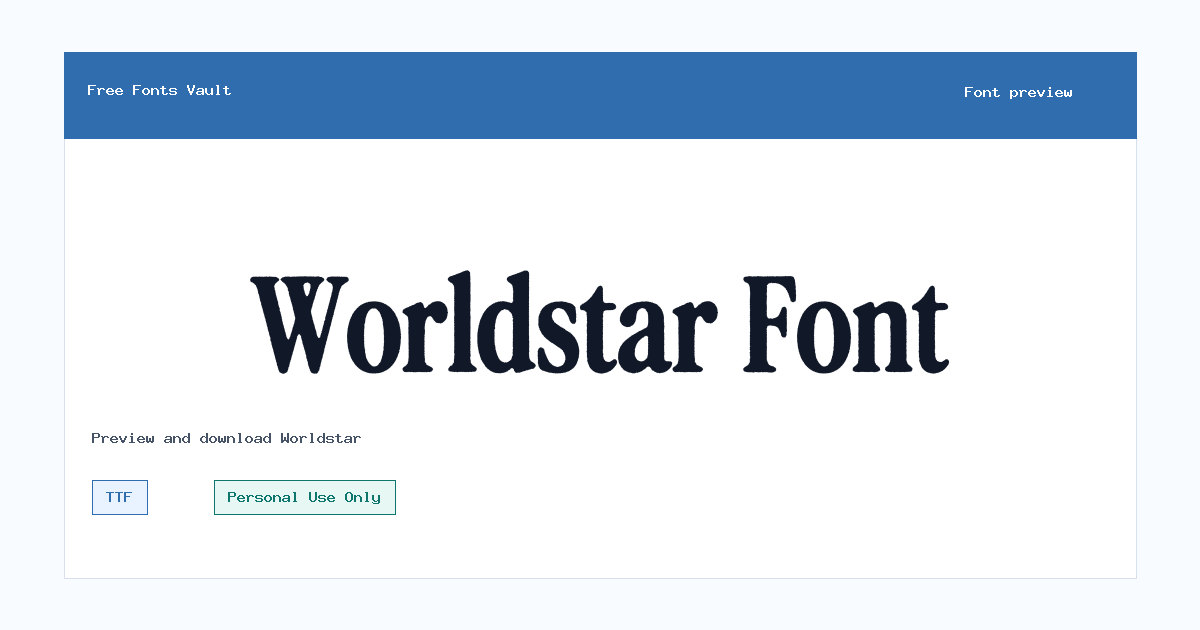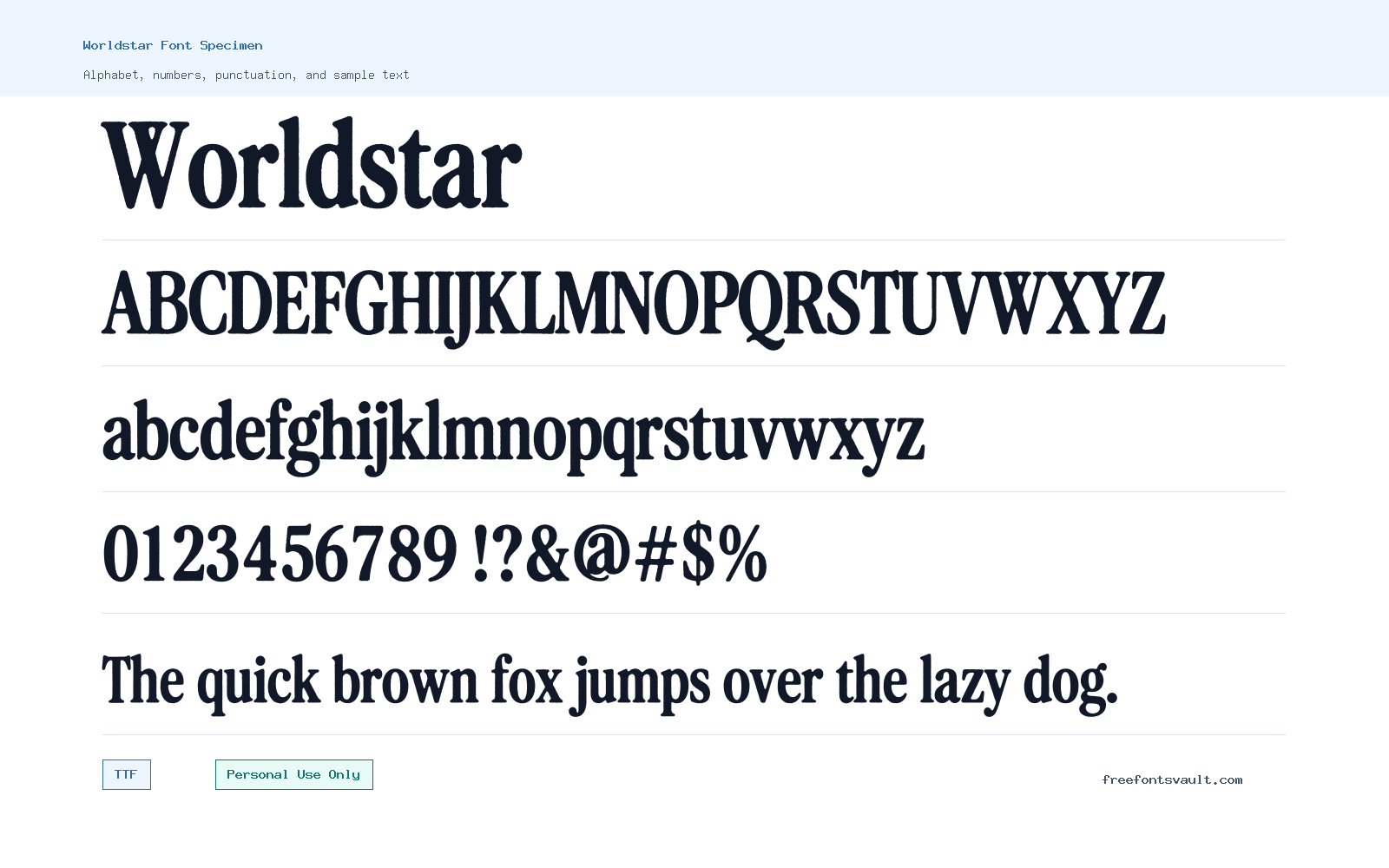
Worldstar
- Designer Bangkit Tri Setiadi
- Foundry Blankids Studio
Worldstar is a serif font family with a Regular TTF style. It is a good choice to test when you need a display-friendly serif for titles, logo drafts, posters, social graphics, and other short text layouts.
For visitors previewing Worldstar, start with the kind of text you actually plan to use: a brand name, event title, product label, quote, or poster headline. Serif fonts often show their character most clearly in larger sizes, so test it as a heading before judging it from a small paragraph. If you are building a logo concept, check the spacing between difficult letter pairs, the balance of uppercase and lowercase forms, and how the word looks in both dark-on-light and light-on-dark versions. For web mockups, use it for hero headings or section titles first, then pair it with a simple sans serif for menus, body text, and interface details.
- Personal-use serif style suitable for short display text, headings, logo drafts, poster titles, and social media graphics.
- Logo concepts, nameplates, packaging mockups, and personal branding studies where a serif display tone is useful.
- Posters, invitations, quote graphics, web hero headings, and other layouts where the font can be shown at a readable size.
Use Worldstar where the lettering can be large enough to show its serif character. For longer reading text, pair it with a clean, neutral sans serif and keep Worldstar for headings, covers, badges, or short phrases. In logo work, always test the exact wordmark rather than judging the font from the alphabet alone. Look at letter spacing, repeated letters, punctuation, and numerals if they matter to your design. For web mockups, export it carefully or use it only in static visuals unless your final license allows webfont use.
Who designed the Worldstar font?
Worldstar is credited to Bangkit Tri Setiadi. Blankids Studio is listed as the foundry.
What is Worldstar best used for?
Worldstar is best tested for short display settings such as logo drafts, poster headlines, invitations, quote graphics, packaging mockups, and web hero titles.
Is Worldstar good for body text?
It is better to test Worldstar as a display serif first. For paragraphs and interface text, pair it with a simple readable sans serif so the layout stays clear.